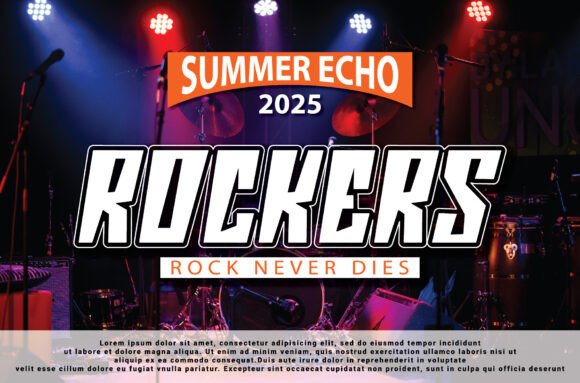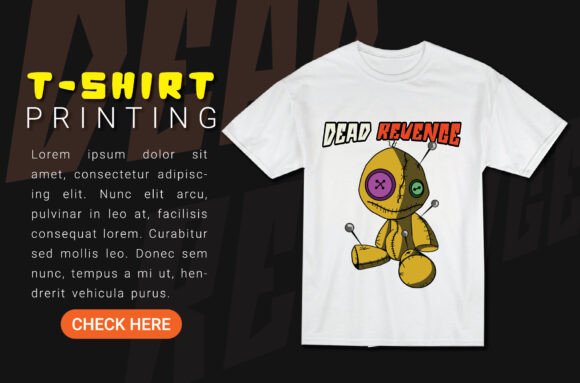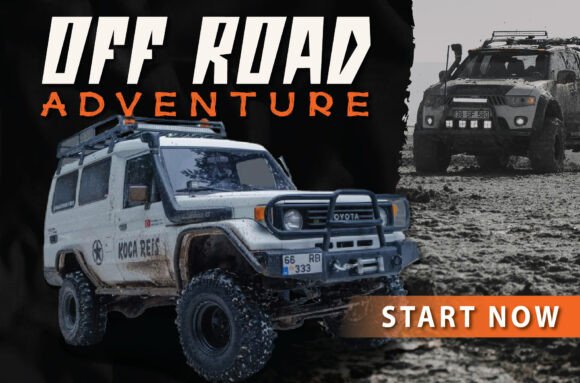
Unleash Your Creativity with Crazy War Font: A Striking Fusion of Modern Adaptability and Robust Masculinity
In the realm of typography, few fonts manage to capture the essence of both modern adaptability and robust masculinity, while also evoking a whisper of nostalgia. Crazy War font, however, achieves this delicate balance with remarkable finesse. This standout font is designed to effortlessly marry the edgy with the versatile, ensuring a charismatic presence in any design project. Whether you’re a designer, crafter, or simply a typography enthusiast, Crazy War is poised to immerse your audience in an artistic voyage where old-world charm subtly intermingles with a robust, cutting-edge aura.
The Birth of Crazy War: A Journey of Creative Fusion
Crazy War font is not just a typographical creation; it’s an experience. Born out of a vision to create a font that could stand apart in the crowded world of design, Crazy War brings together the best of multiple worlds. Its design journey involved a meticulous process of blending traditional elements with modern twists, resulting in a font that is both nostalgic and cutting-edge. Every letterform in Crazy War has been crafted to convey a sense of strength and reliability, while also showcasing a unique personality that can elevate any design project.
Key Features of Crazy War Font
- Modern Adaptability: Crazy War’s design ensures it can be seamlessly integrated into a wide range of projects, from digital media to print, and from headlines to body text. Its adaptability makes it a versatile tool for designers.
- Robust Masculinity: The font exudes a strong, masculine aura, making it particularly suitable for projects that require a bold statement. Its robust features ensure that it commands attention without compromising on elegance.
- Whisper of Nostalgia: What sets Crazy War apart is its subtle nod to traditional typography. This nostalgic element adds depth and character to the font, making it memorable and impactful.
- Charismatic Presence: The overall design of Crazy War ensures that it brings a charismatic presence to any project. Its unique blend of styles ensures that it stands out, making it an excellent choice for designers looking to leave a lasting impression.
Applications of Crazy War Font
The versatility of Crazy War font makes it suitable for a myriad of applications. Here are some of the areas where Crazy War can make a significant impact:
- Branding and Logos: Crazy War’s unique personality makes it an excellent choice for branding and logo design. Its robust masculinity and charismatic presence ensure that your brand stands out.
- Advertising and Marketing Materials: For advertising and marketing materials, Crazy War can help grab attention and convey a strong message. Its modern adaptability ensures it works well in both digital and print formats.
- Web Design: In web design, Crazy War can be used to create compelling headlines and engaging content. Its legibility and style ensure a great user experience.
- Packaging and Product Design: For packaging and product design, Crazy War adds an element of sophistication and strength. Its unique style can make products stand out on shelves.
Why Choose Crazy War Font?
In a world where design trends are constantly evolving, having a font that can stand the test of time is invaluable. Crazy War font offers:
- Enduring Appeal: Its classic elements ensure that it remains relevant and appealing, even as trends change.
- Resounding Impact: With Crazy War, you can make a strong impact. Its design ensures that your message is conveyed with clarity and style.
- Creative Freedom: The versatility of Crazy War gives designers the freedom to experiment and push creative boundaries.
In conclusion, Crazy War font is more than just a typographical creation; it’s a tool for designers and crafters to unleash their creativity and make a lasting impact. Its striking fusion of modern adaptability and robust masculinity, delicately tinged with a whisper of nostalgia, makes it a standout in the world of fonts. By choosing Crazy War, you’re not just selecting a font; you’re embracing a design experience that promises to elevate your projects and leave a resounding impact.